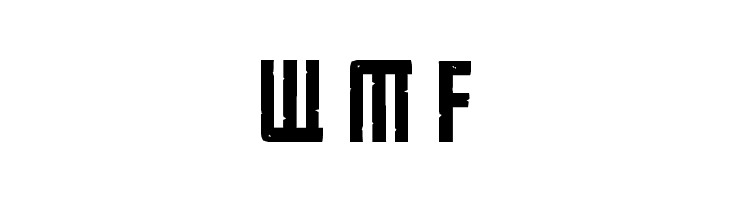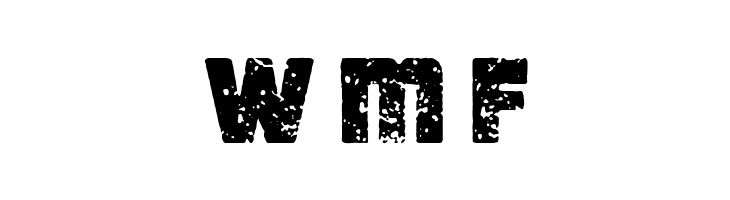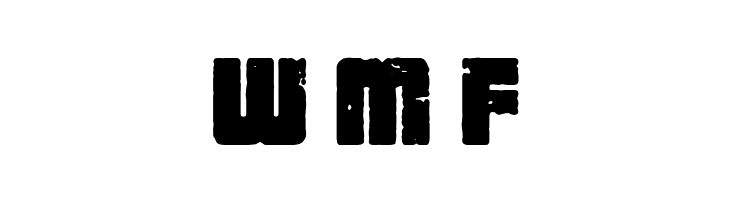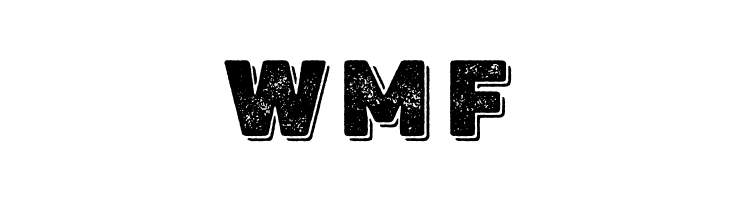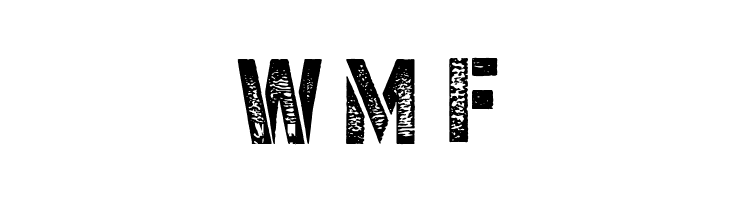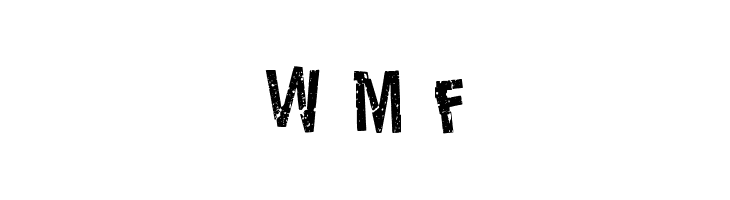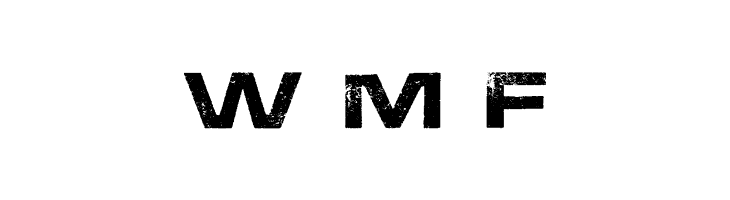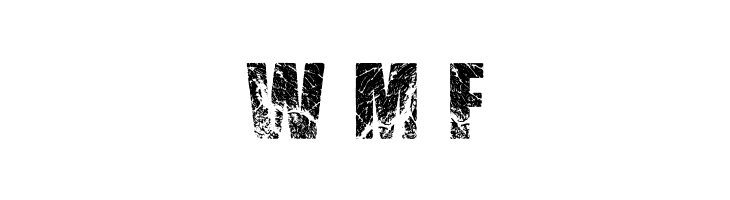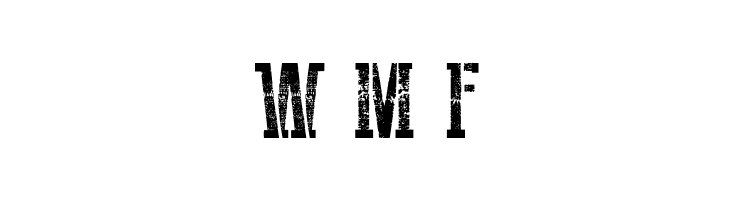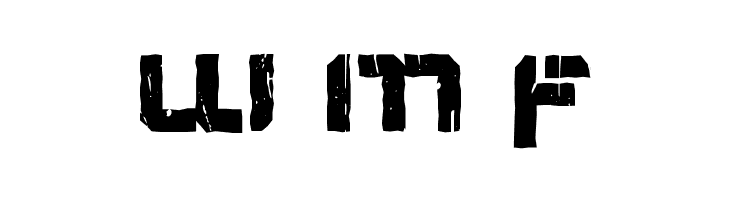
A bold, distressed font with a rugged, vintage appearance.
A bold, distressed font with a gritty, urban aesthetic.
A bold, distressed font with a rugged, grunge aesthetic.
A bold, distressed font with a rugged, vintage appearance.
A bold, distressed font with a rugged, industrial look.
A rugged, distressed font with a bold, vintage appearance.
A bold, barbed wire-themed decorative font with a rugged, distressed appearance.
A bold, industrial font with a rugged, distressed texture.
A rugged, distressed font with a barbed wire design and a rustic, industrial aesthetic.
A bold, grunge-style font with a heavy shadow effect and distressed texture.
A bold, distressed font with a rugged, grunge appearance.
A bold, distressed font with a rugged, industrial aesthetic.
A bold, distressed font with a rugged, vintage look.
A bold, distressed stencil-style font with a grunge texture.
A bold, distressed font with a vintage military style.
A bold, distressed font with a rugged, vintage appearance.
A rugged, distressed font with a bold, textured appearance.
A rugged, distressed font with a vintage military stencil style.
A bold, distressed font with a rugged, vintage appearance.
A rugged, distressed font with a military stencil style.
A bold, distressed font with a gritty, urban aesthetic.
A bold, distressed font with a rugged, gritty appearance.